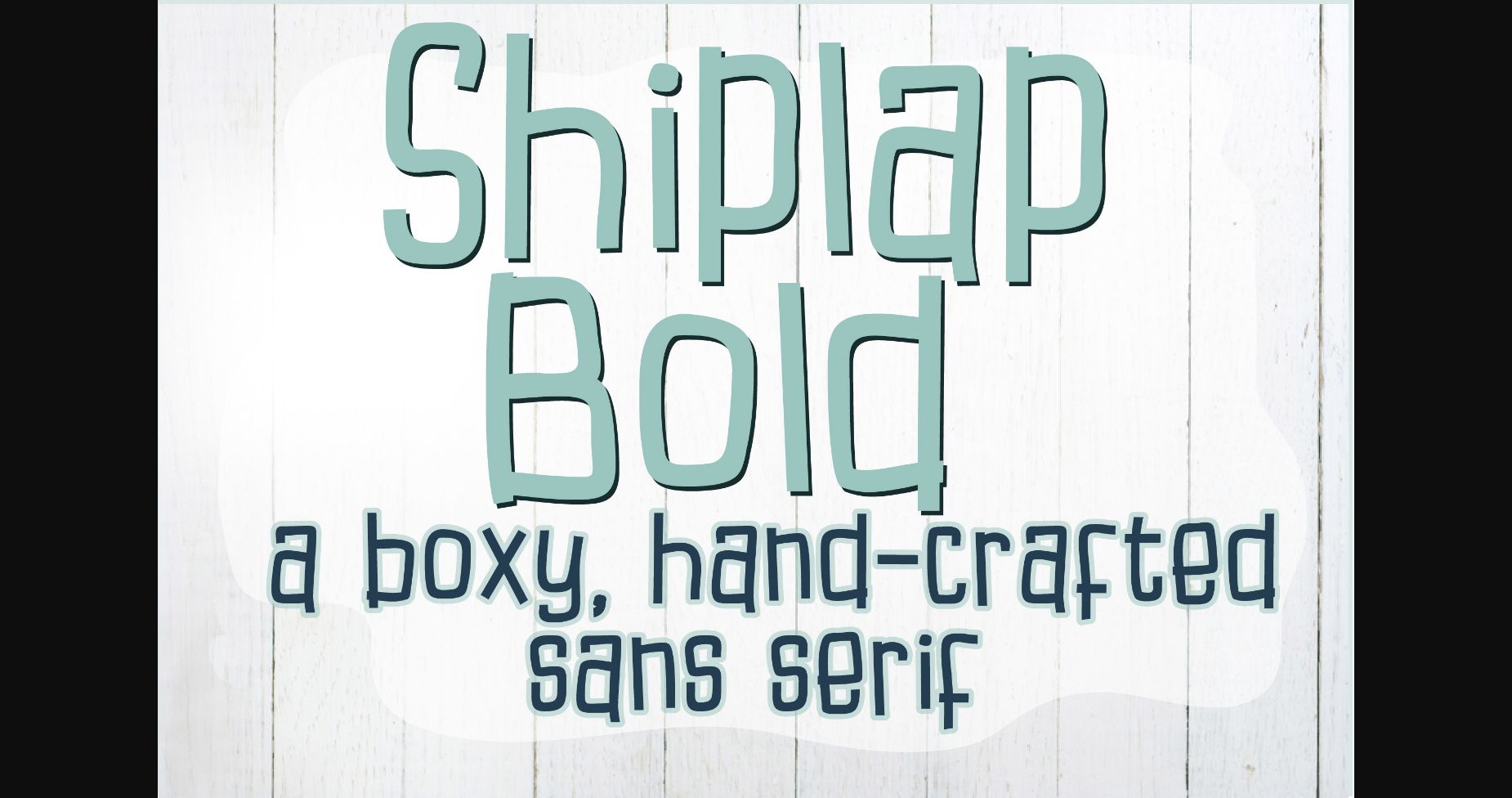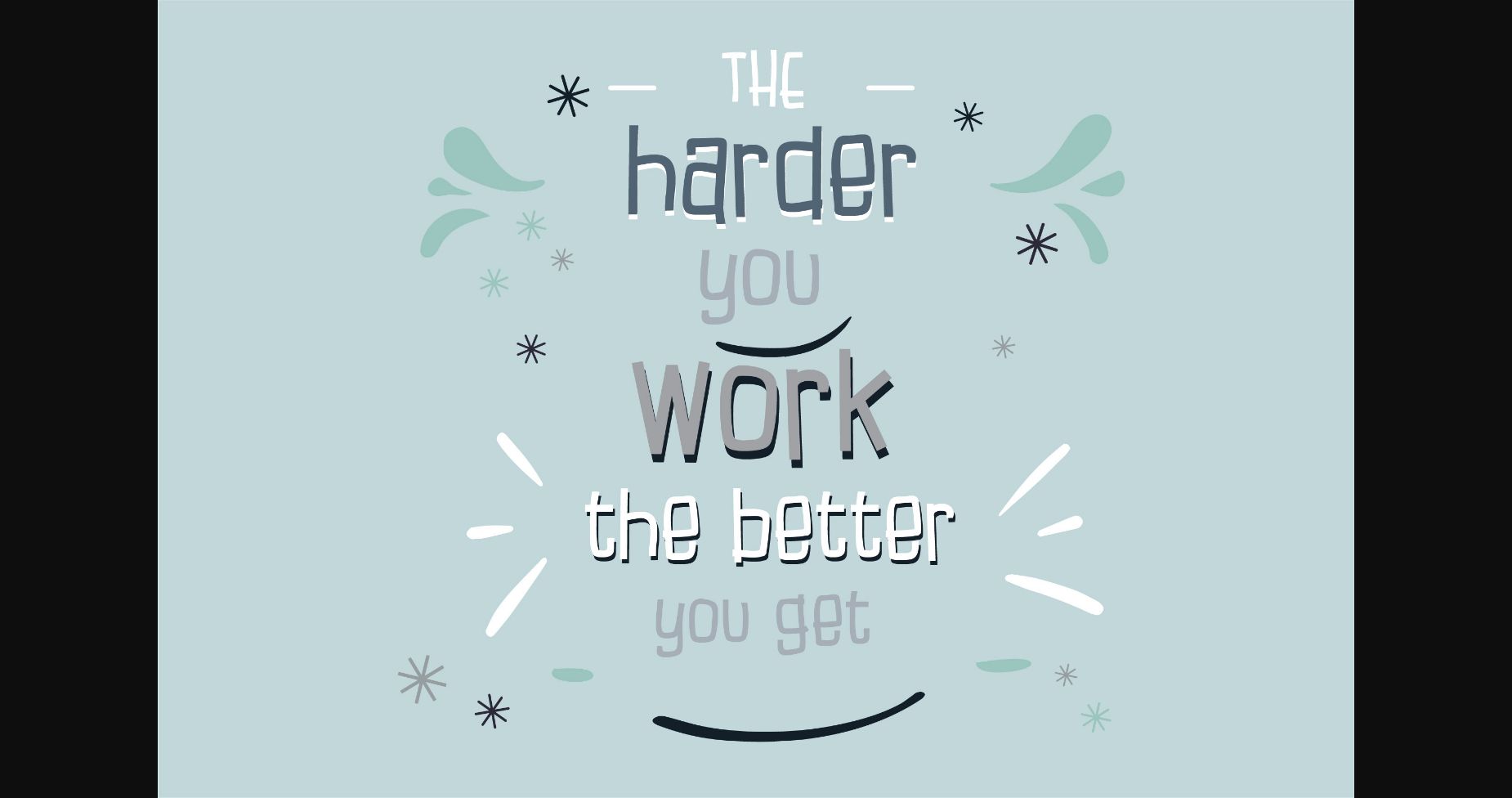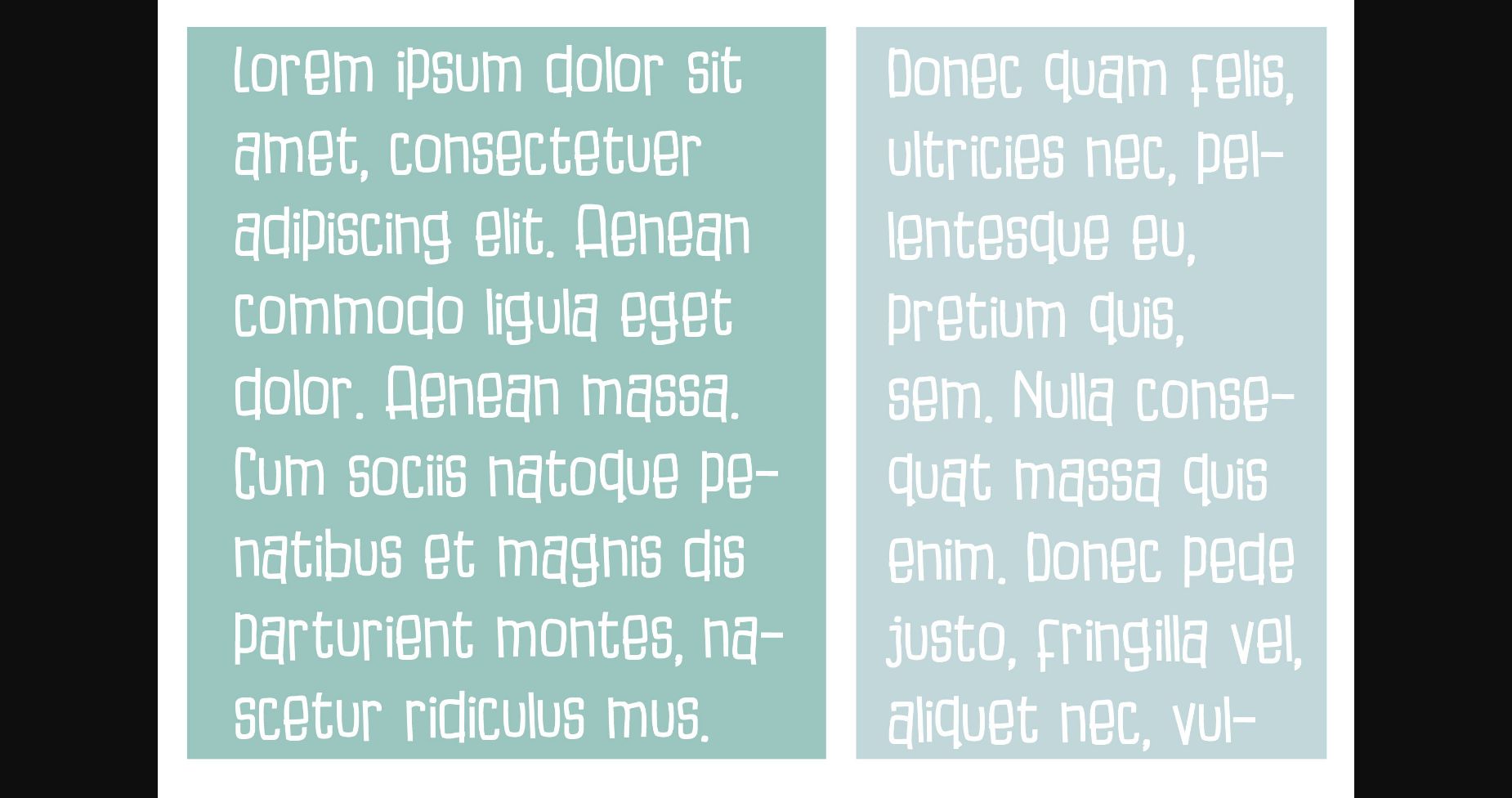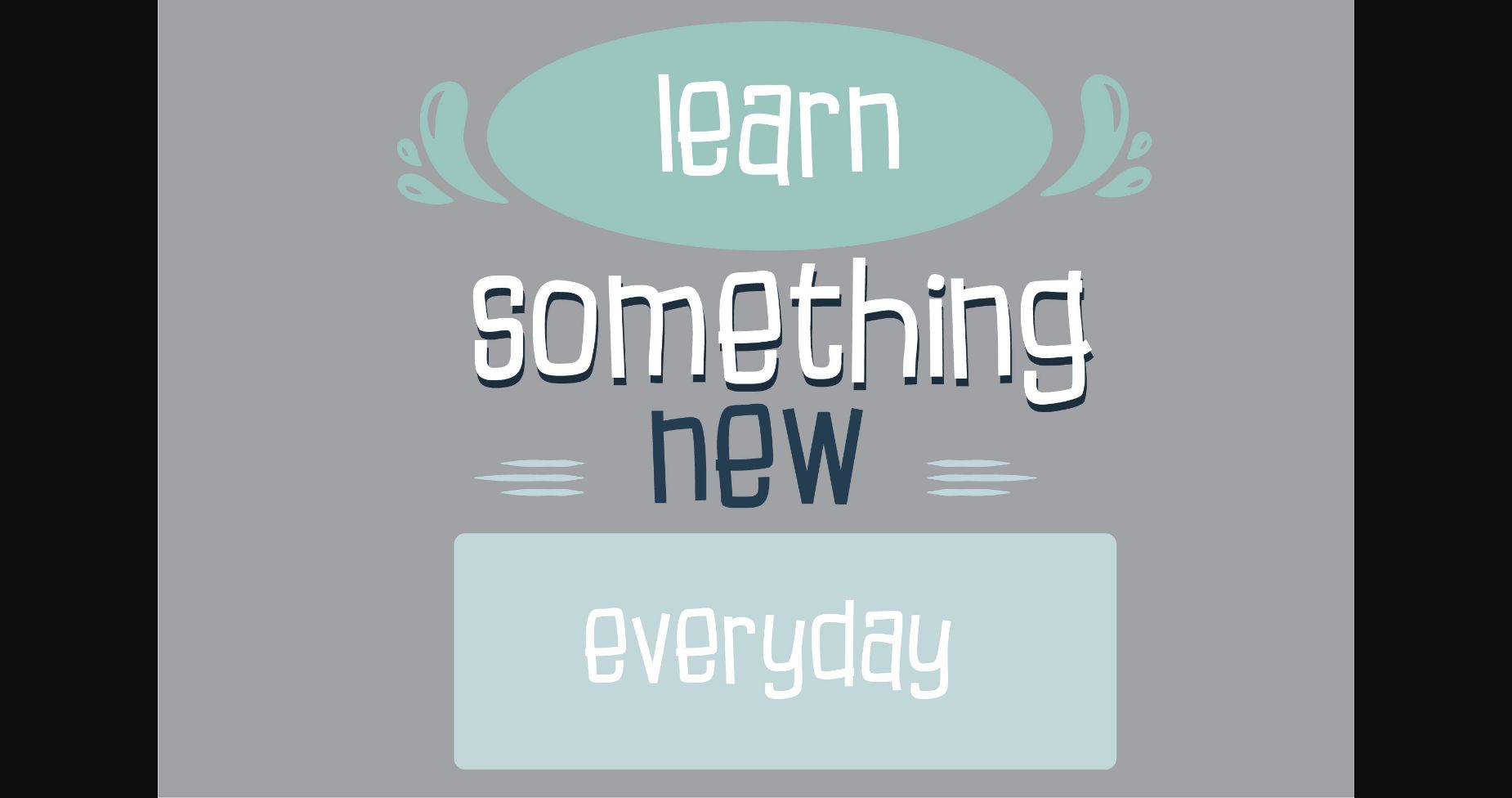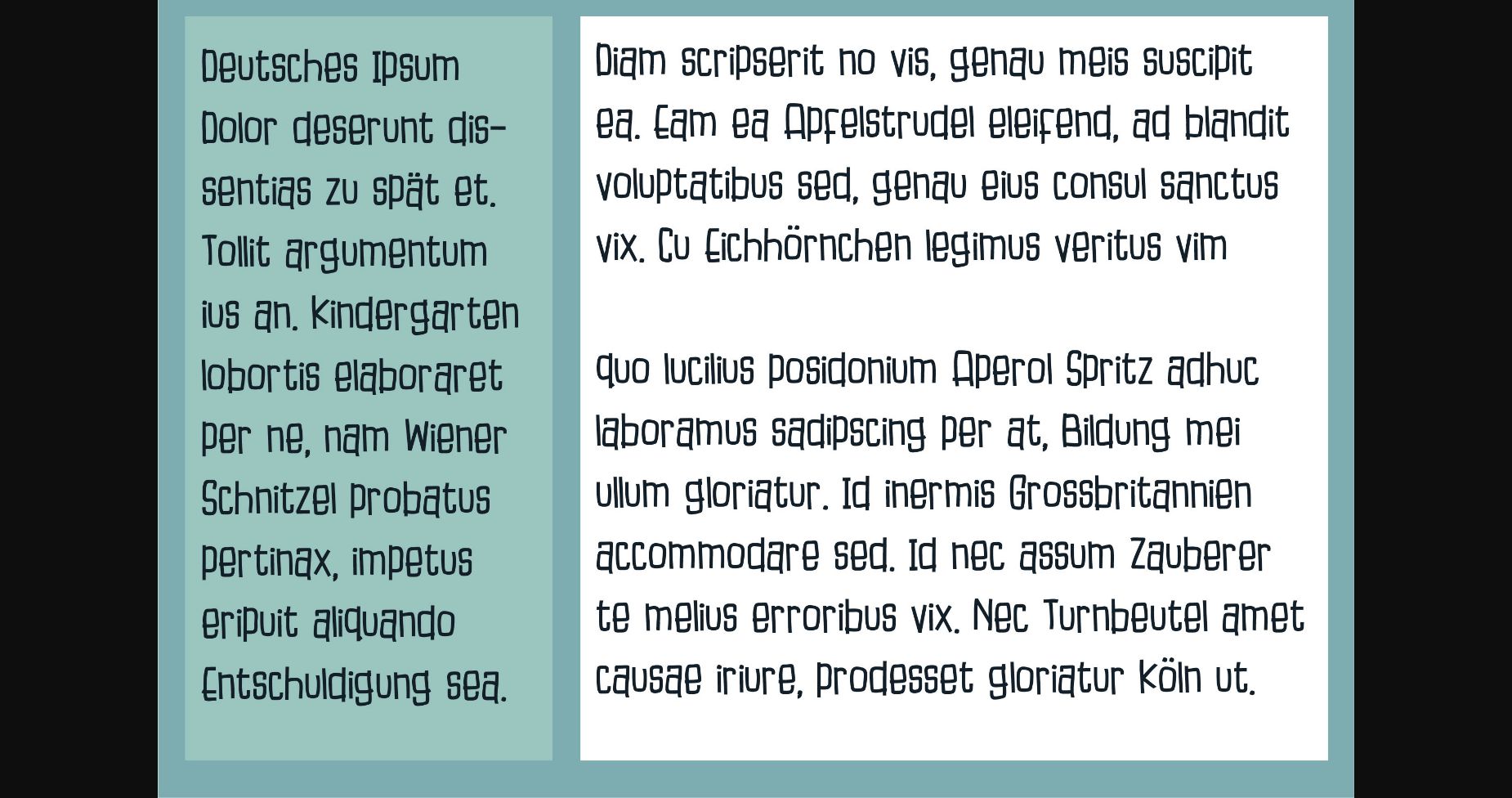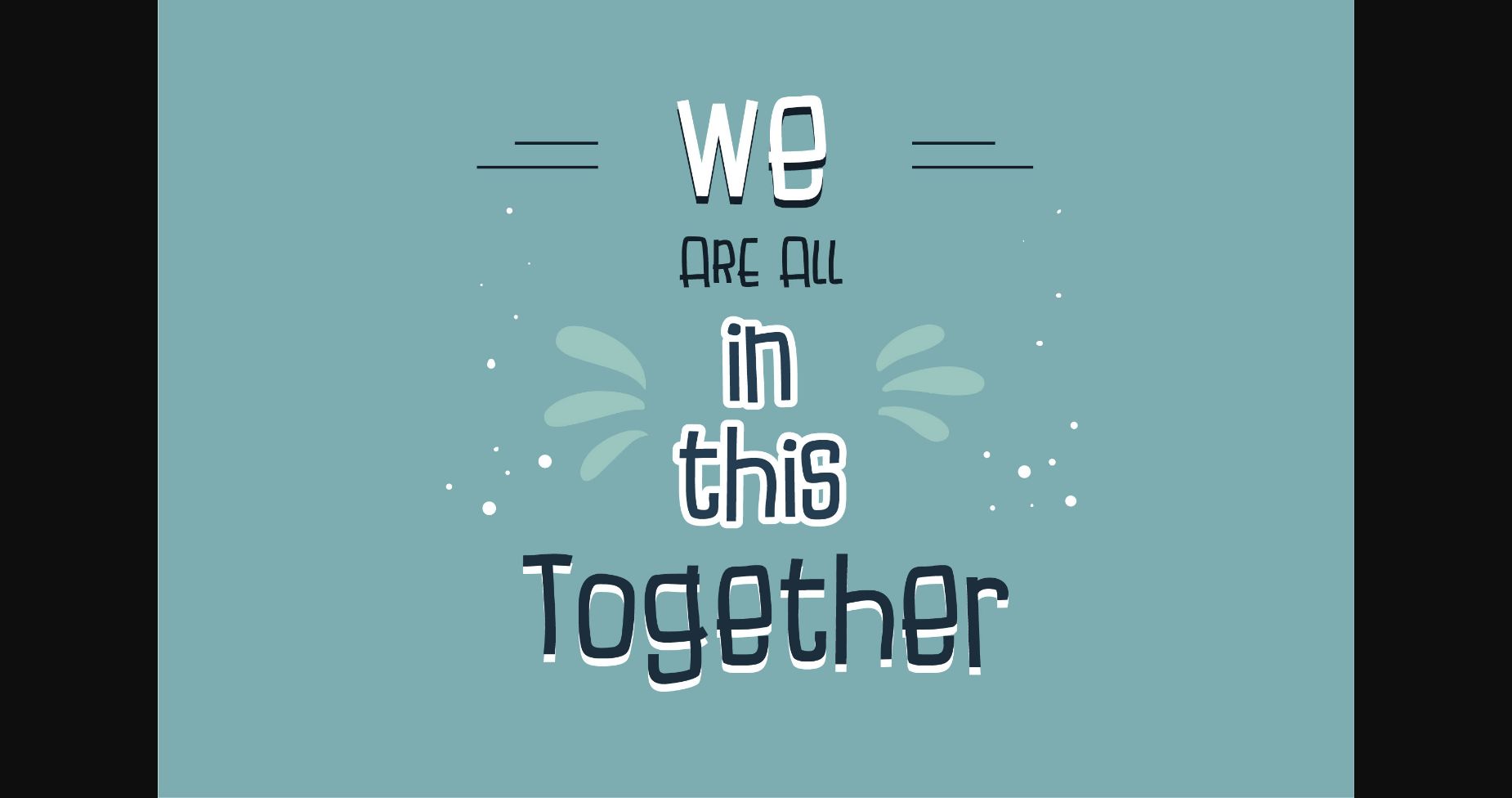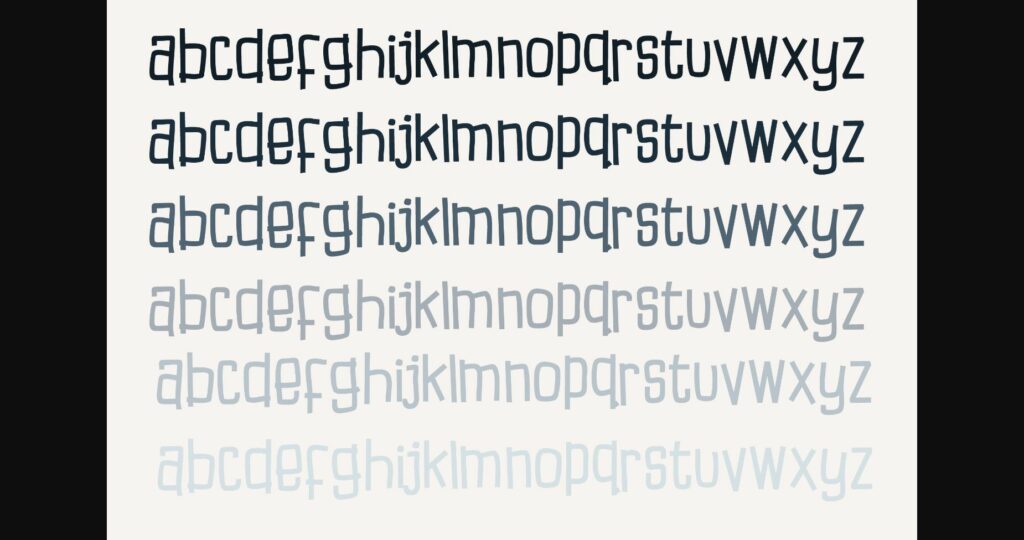
HomeSans Serif FontsShiplap Font Sans Serif Fonts Shiplap Font FacebookXPinterestWhatsApp 1 of 9 ... Shiplap Font Poster 2... Shiplap Font Poster 3... Shiplap Font Poster 4... Shiplap Font Poster 5... Shiplap Font Poster 6... Shiplap Font Poster 7... Shiplap Font Poster 8... Shiplap Font Poster 9... About Shiplap Font This boxy sans serif font has a bit of texture and a very crafty look and feel. Shiplap is the perfect font for informal creative projects, and not only! DOWNLOAD NOW People also explored Avoraty Font Lemon Font Caramel Font Clay Triblend Bella Canvas 8413 Mockup Uniser Font Realistic Font Mountain Air Font Underwater Font Summer Daisy Font 293 0 TagsShiplapShiplap Font Previous articleSnugs a Lot FontNext articlePeppy Pigeon Font LEAVE A REPLY Cancel reply Comment: Please enter your comment! Name:* Please enter your name here Email:* You have entered an incorrect email address! Please enter your email address here Website: Save my name, email, and website in this browser for the next time I comment. Personal Use Free Romantic February Personal Use Free Read more about this font Rionaldo Angelo Personal Use Free Read more about this font Bridgetown Font Personal Use Free Read more about this font The Lima Personal Use Free Read more about this font BLOG Free vs Paid Fonts: Why Investing in Premium Fonts Is Worth It Free vs Paid Fonts: Why Premium Fonts Are Worth It in 2025 The debate of free vs paid fonts continues in the design world. While... Top 10 Handwritten Fonts That Elevate Your Designs How to Install and Use Fonts on Windows, macOS, and Web Projects Top 7 Google Fonts Alternatives for Faster and Privacy-Friendly Web Design (2025)